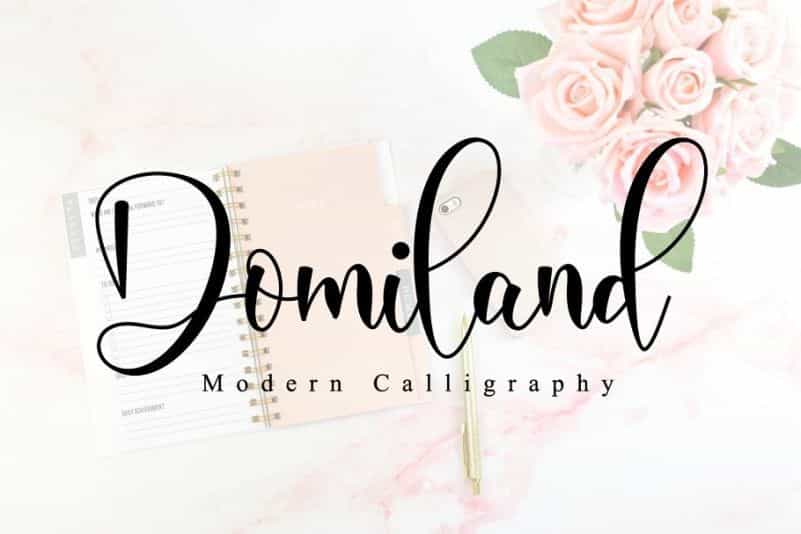
Introducing Domiland Font. It is the design and sharing of Nissa Studio. It is a splendid script font that has an eloquent, sophisticated and at the same time modern appearance. Feel the softness of its rounded lines and you will surely fall in love with it!